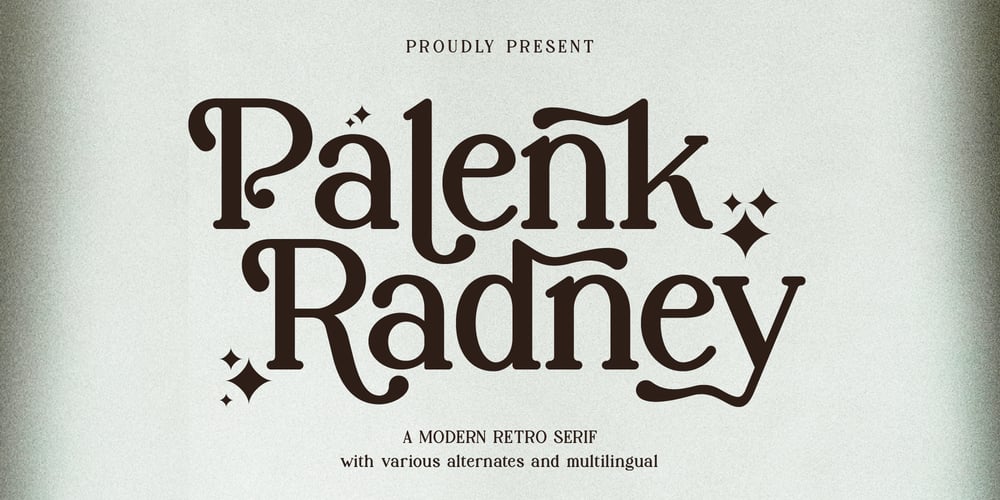
Palenk Radney Font Family was designed by Dede Nugraha and published by Denustudio. Palenk Radney contains 2 styles and family package options. Palenk Radney | Modern Retro Serif, from Denustudios, suitable for any projects such as: logos, branding projects, homeware designs, product packaging, mugs, quotes, posters, shopping bags, t-shirts, book covers, name card, invitation cards, greeting cards, label, photography, watermark, special events, and all your other lovely projects that need a Modern Retro Serif taste. ===============================================================What’s Included : Regular and italic Web Font Standard glyphs Alternate and Ligature Works on PC & Mac Simple installations Accessible in the Adobe Illustrator, Adobe Photoshop, Adobe InDesign, even work on Microsoft Word and Other Software. PUA Encoded Characters – Fully accessible without additional design software. Fonts include multilingual support Hope you enjoy with our font!